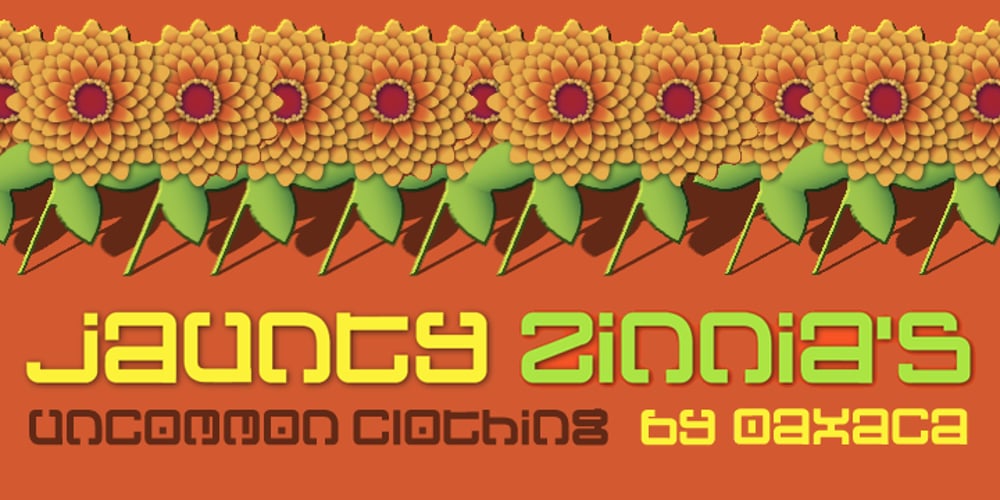
Oaxaca Font Family was designed by Randy Harris and published by Just My Type. Oaxaca contains 1 styles and family package options. Traveling through the central and southern parts of Mexico a number of years ago, I couldn’t help but be impressed with the amazing architecture of the indigenous peoples. From the giant pyramids of Teotihuacan to the extensive and impressive layout of Chichén Itzá to the smaller-but-spectacular Monte Alban ruins in Oaxaca, creativity abounds. One of the things I most enjoyed were the carved stone friezes that ran around many of the more complete buildings. Oaxaca calls to mind those beautiful carvings and, strangely, Chinese writing.